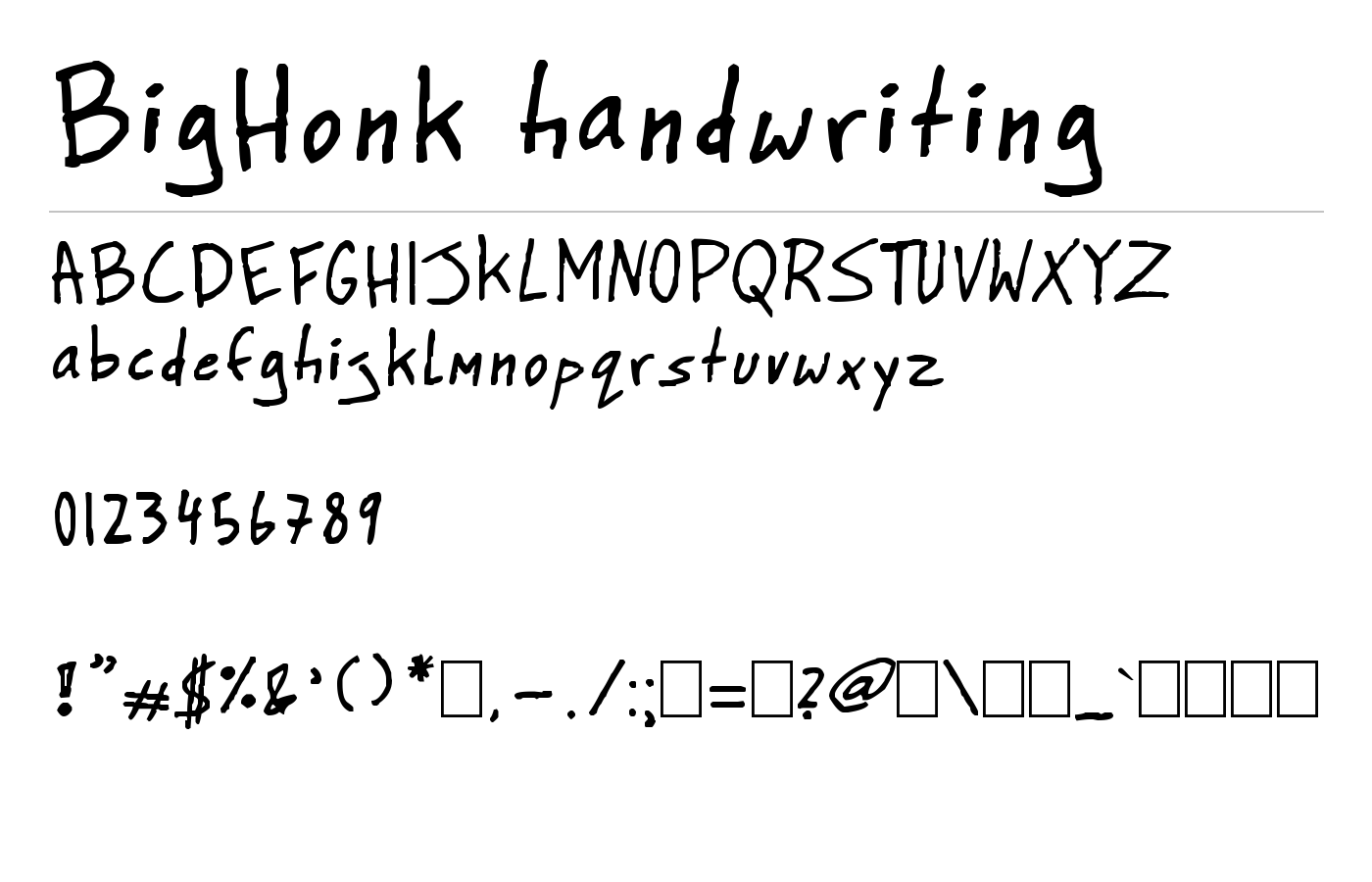
BigHonk handwriting is a casual, playful script font with a quirky, hand-drawn style that feels friendly and approachable. Its irregular strokes and uneven baseline give it a lively personality, making it perfect for informal designs, creative projects, and personal branding that wants to convey warmth and individuality. This font works well for headlines, logos, and packaging where a genuine, human touch is desired.
BigHonk handwriting Font
About BigHonk handwriting Font